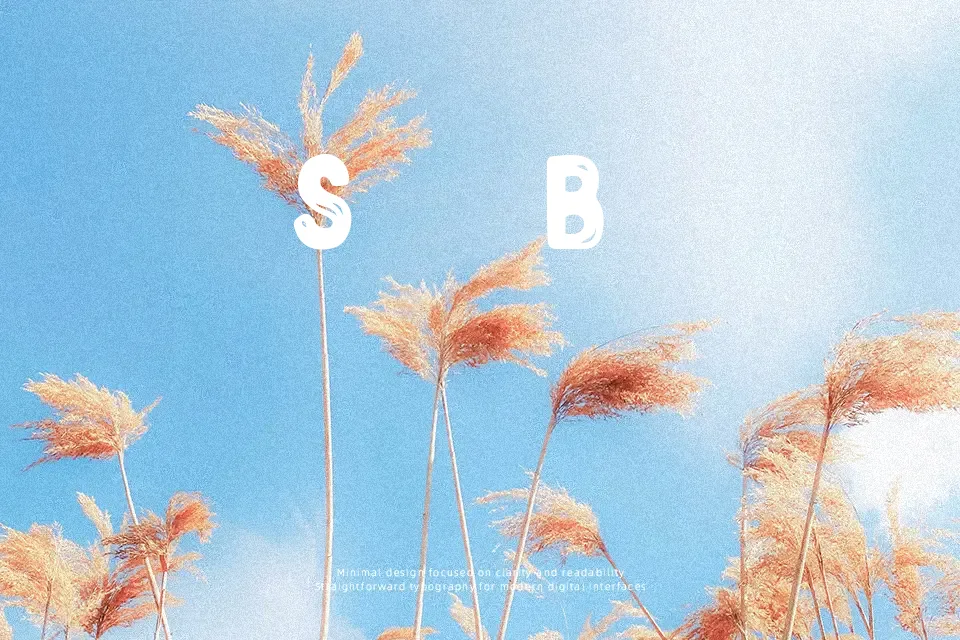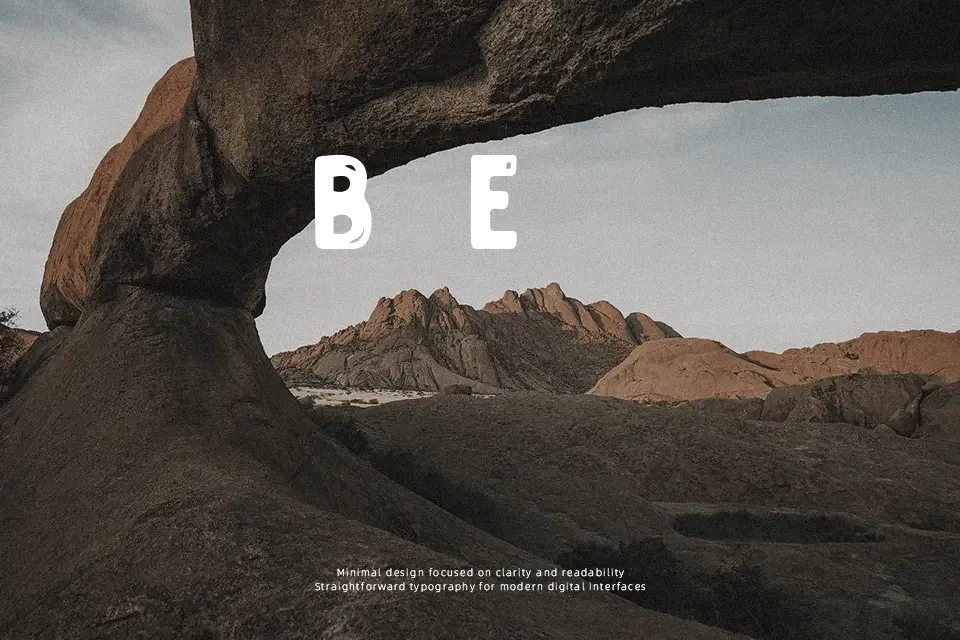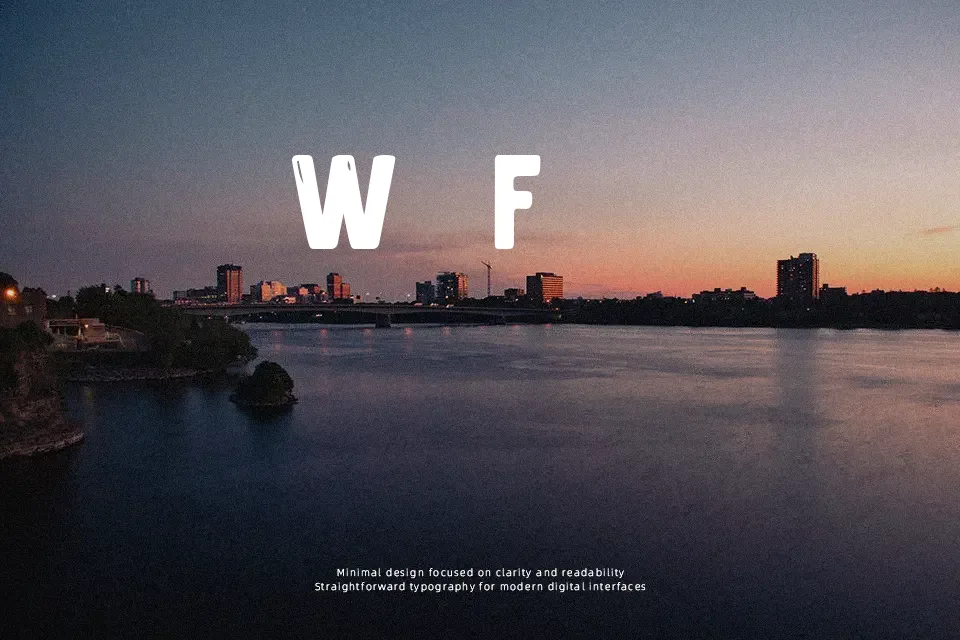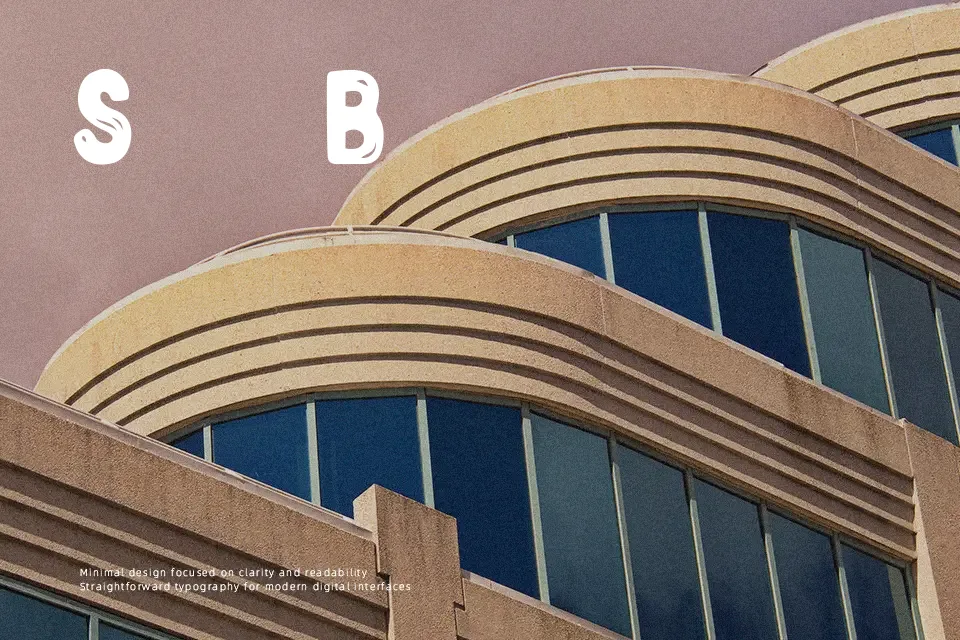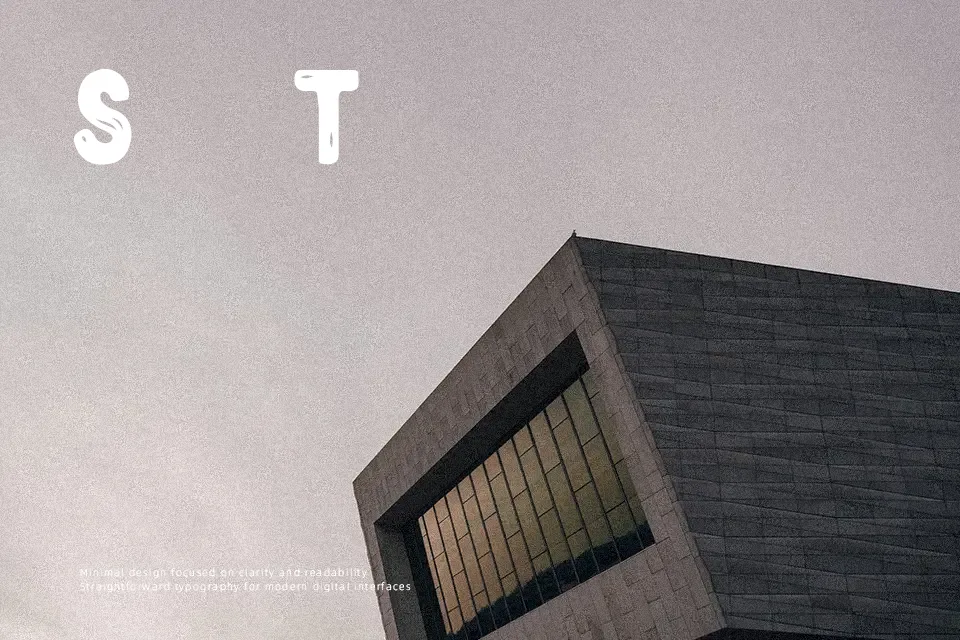
Bulles de chocolats Font
Bulles de chocolats leans on thick, rounded strokes and generous curves that make each letter feel like it has been piped in chocolate. The weight is heavy and compact, with tight internal counters that create a dense, bubbly texture at larger sizes. Overall, it reads as a casual, decorative display face rather than something neutral or restrained. It fits nicely on candy and dessert packaging, playful restaurant menus, kids event posters, or a bold logo for a sweet-focused brand. For long paragraphs, small captions, or serious editorial layouts, the font quickly feels overwhelming and loses legibility, so I would reserve it for short, punchy titles and wordmarks only.
candy or dessert packaging titles
kids event posters and banners
playful food or sweets logo wordmarks
bold social media headers for fun brands
formal or corporate branding systems
small-size UI labels or navigation text
serious editorial or news layouts
Perfect for kids, logo, and packaging, with a creative and cartoon style.